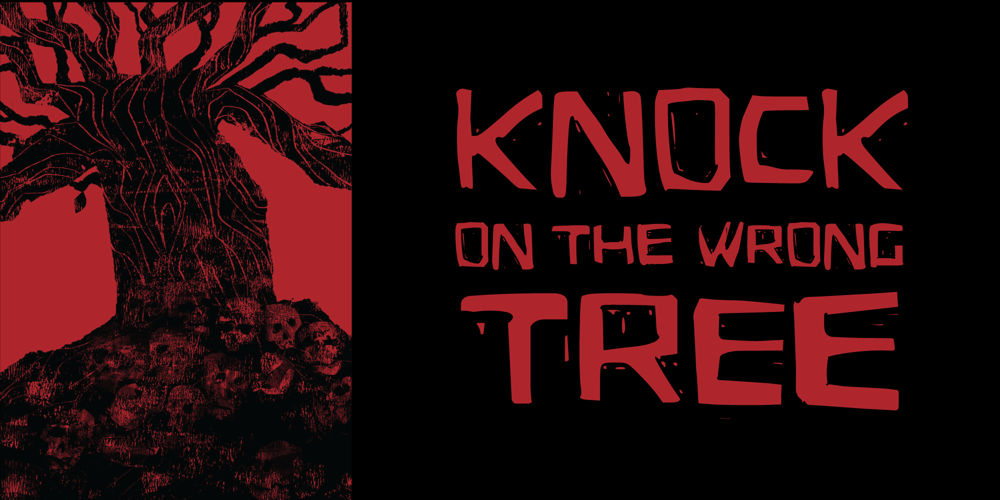
Eldes Cordel Font Family was designed by Eldes Oliveira and published by Eldes Studio. Eldes Cordel contains 1 styles and family package options. Font directly inspired by woodcut — mainly on the covers of Brazilian Cordel literature booklets — and created mainly to compose graphic pieces that have Brazilian culture as a reference and or that want to convey the concept of handmade, this typography brings some of the characteristics of visual effects of this printing technique, such as the gaps and inaccuracies of the carving in the wood matrix.Because of its peculiar glyph design is also a suitable font for creating an atmosphere of mystery in horror graphic pieces.